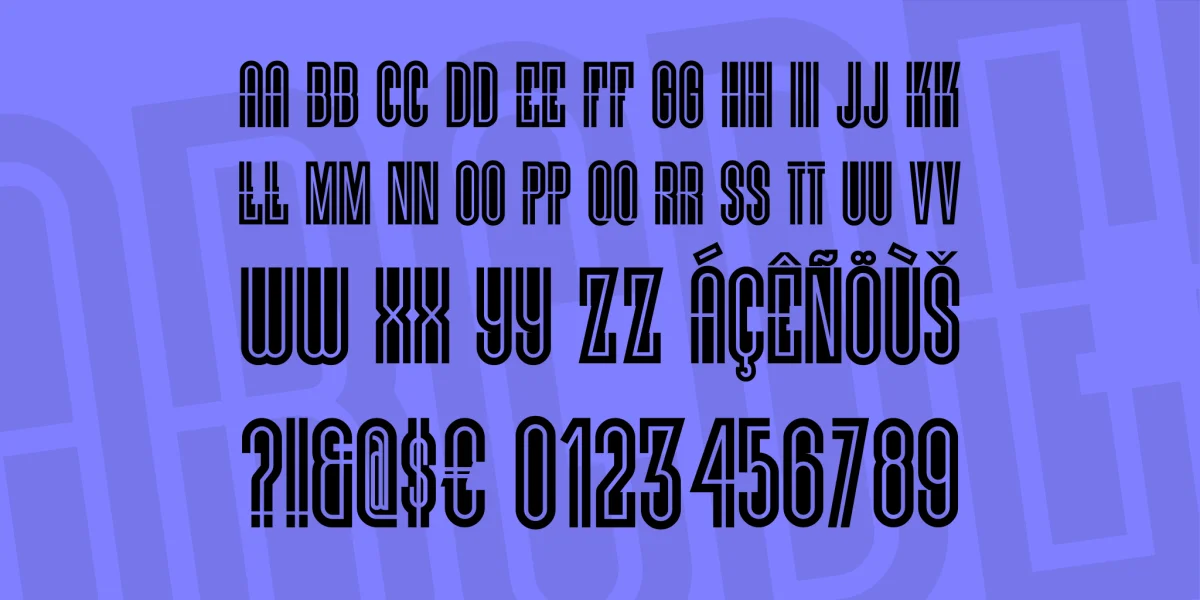
Another case of poor note-taking, I’m afraid. The pattern for this typeface came from a Polish poster from the 1930s, but I didn’t note the designer’s name. I beefed up the rather anemic letterforms with a fat outline to give the font a little more oomph. The name, translated from French, means simply “Old Warsaw.”